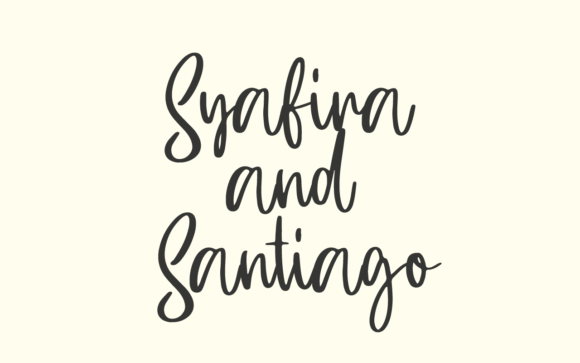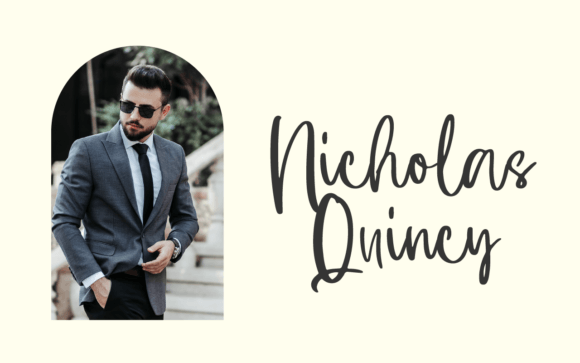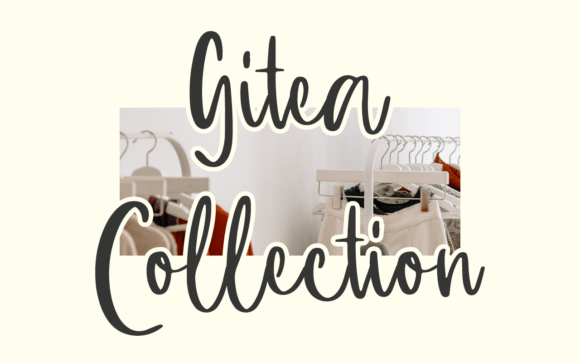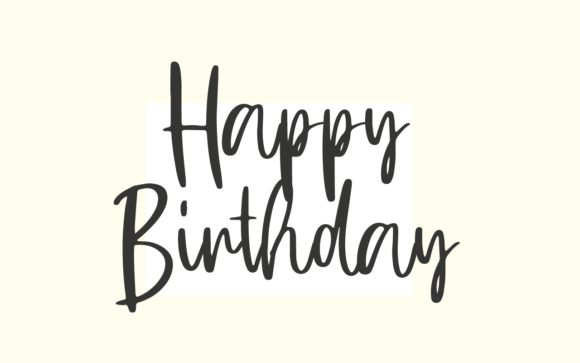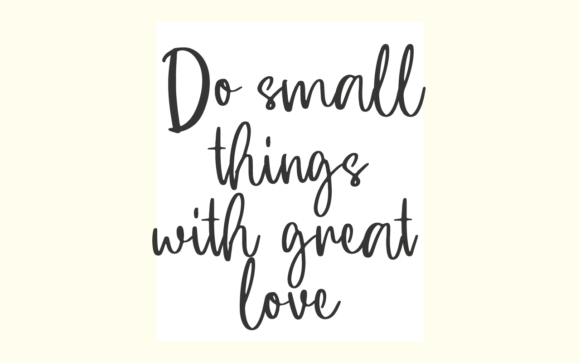
Unleashing the Charm of Personalized Design
As designers, we’ve all had that moment when a project’s success hinges on the perfect font. You’re brainstorming ideas, flipping through inspiration boards, and suddenly – it hits you. The perfect handwritten font that speaks directly to your client’s style and vision. For me, that moment was discovering the Jamiya Madalyn Font, and I knew I had to share its magic with the design community.
Jamiya Madalyn Font is a stunning, elegant handwritten font that brings a touch of warmth and personality to any design. Whether it’s a wedding invitation, a heartfelt thank you card, or a custom logo, this font is the perfect choice for those seeking a unique and personalized style. As a designer, having access to versatile fonts like Jamiya Madalyn Font is invaluable, as it opens doors to endless creative possibilities and helps bring our clients’ dreams to life.
Jamiya Madalyn Font Key Features
- Font Style: Script, Display Font
- Unique Characteristics: The Jamiya Madalyn font features a unique, hand-drawn design with elegant and flowing lines, making it perfect for creative projects that require a touch of sophistication and whimsy.
Jamiya Madalyn Font Review
I’ve had the chance to work with the Jamiya Madalyn font, and I must say it’s a lovely script font. ✨ The elegant, handwritten feel immediately catches the eye and can add a touch of sophistication to any design. ✨ The connections between the letters are smooth, and the overall flow is pleasant to look at. ✨ The font also comes in multiple weights, which is always a bonus.
However, there are a few limitations to consider. ⚠️ The font may not be ideal for long blocks of text, as the connections between the letters can start to look a bit messy. ⚠️ Additionally, the font’s readability can be affected by the size and color used. ⚠️ It’s essential to experiment with different settings to find the optimal balance.
In terms of overall impression, I think the Jamiya Madalyn font is a great choice for titles, headings, or short paragraphs where its unique feel can shine. It’s a beautiful addition to any design, but it’s crucial to use it thoughtfully.
- Works well for: titles, headings, short paragraphs
- Limited by: long blocks of text, readability at smaller sizes or with low contrast
- Recommended for: designers looking for a unique, elegant script font
Jamiya Madalyn Font is ideal for creative projects that require a unique, cursive font. Use it for wedding invitations, social media graphics, or branding materials that need a touch of elegance. For best results, pair Jamiya Madalyn Font with bold or sans-serif fonts for contrast.
Alternatives to Jamiya Madalyn Font
The Great Vibes font is a beautiful, elegant script font that is perfect for creating a sophisticated and luxurious feel. It is ideal for use in branding, invitations, and other high-end designs. Compared to Jamiya Madalyn Font, Great Vibes has a more refined and delicate look, making it suitable for more formal and professional applications.
The Alex Brush font is a handwritten script font that is great for creating a personal and touchy-feely feel. It is perfect for use in wedding invitations, birthday cards, and other personal designs. Compared to Jamiya Madalyn Font, Alex Brush has a more casual and playful look, making it suitable for more informal and creative applications.
The Carolyna Pro font is a modern script font that is perfect for creating a stylish and sophisticated feel. It is ideal for use in branding, advertising, and other high-end designs. Compared to Jamiya Madalyn Font, Carolyna Pro has a more modern and sleek look, making it suitable for more contemporary and fashion-forward applications.
For optimal readability, we recommend using Jamiya Madalyn at font sizes between 18px and 48px, with a line height of 1.2 to 1.5 times the font size. This will ensure that the text is clear and easy to read, while also maintaining the font’s elegant and cursive nature.